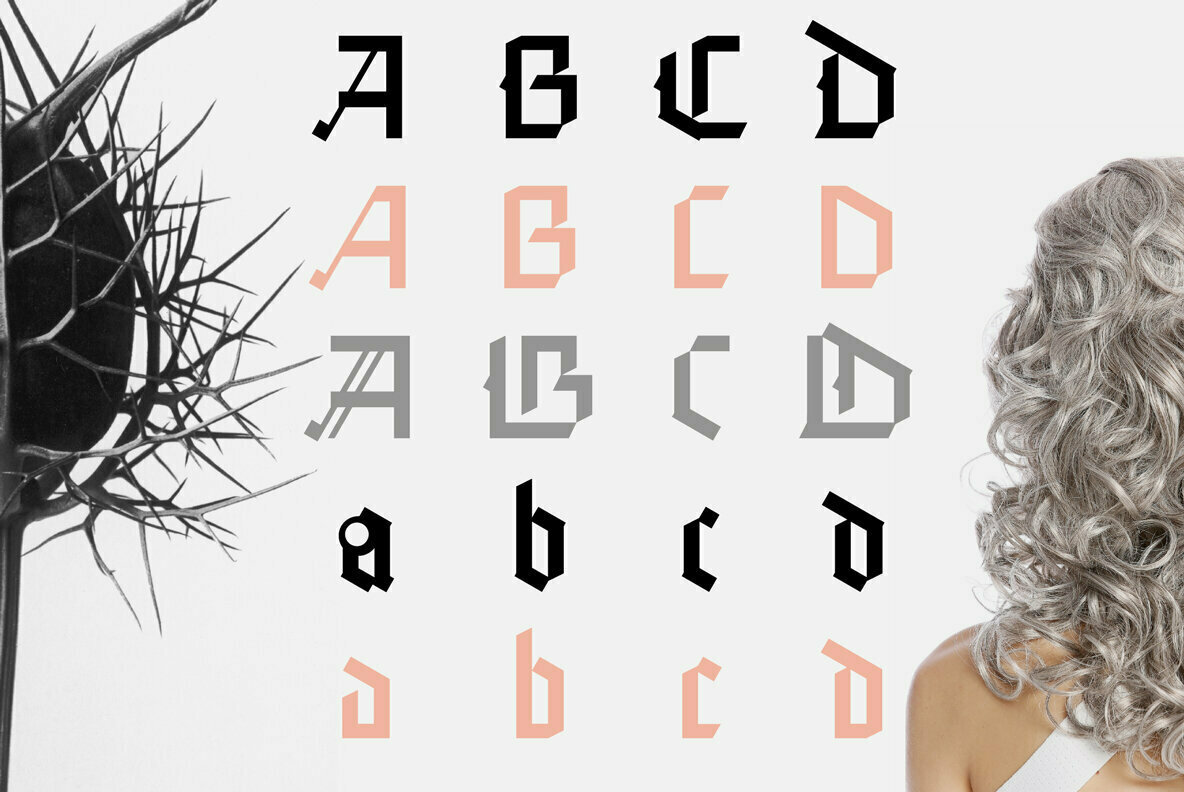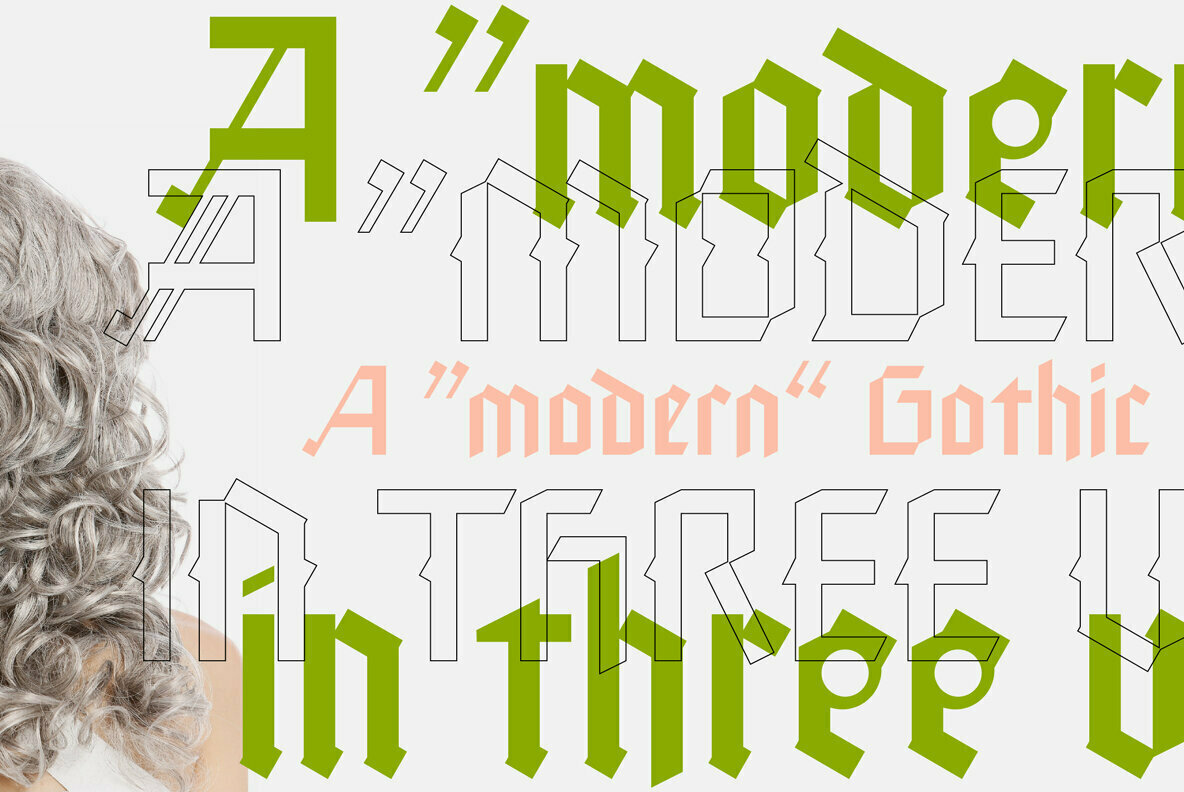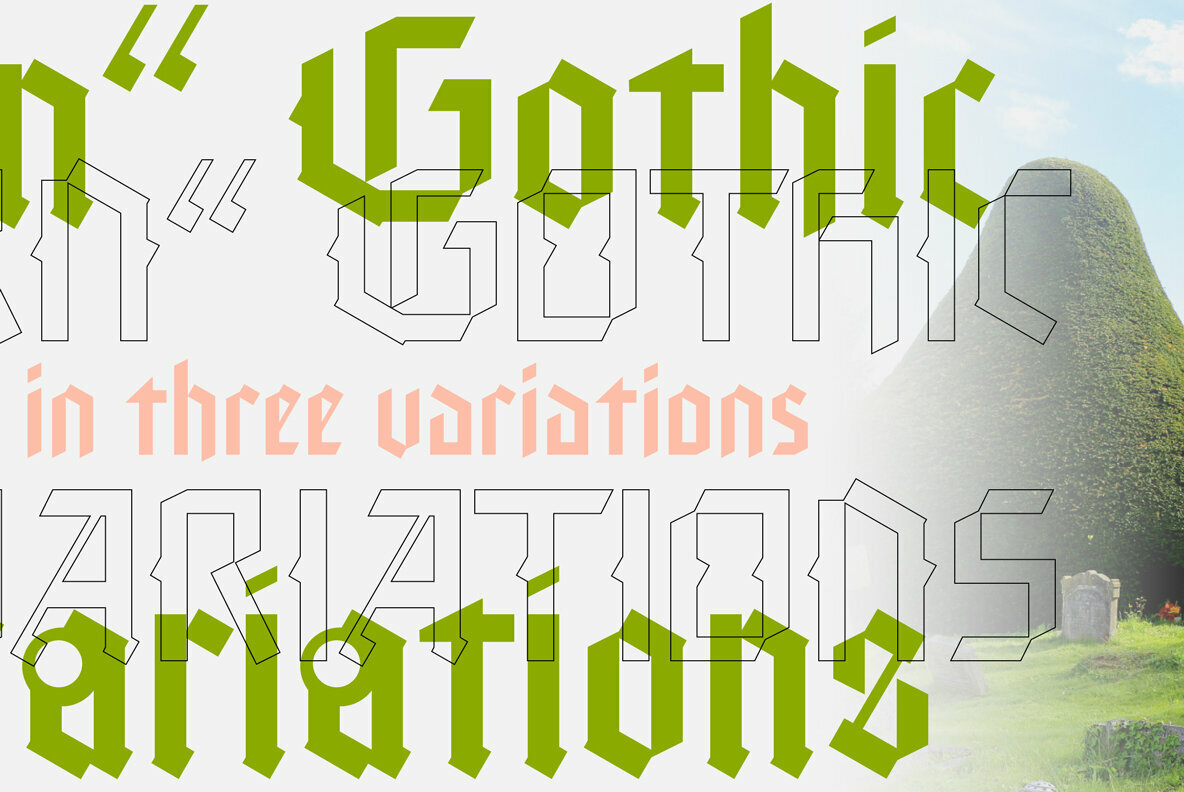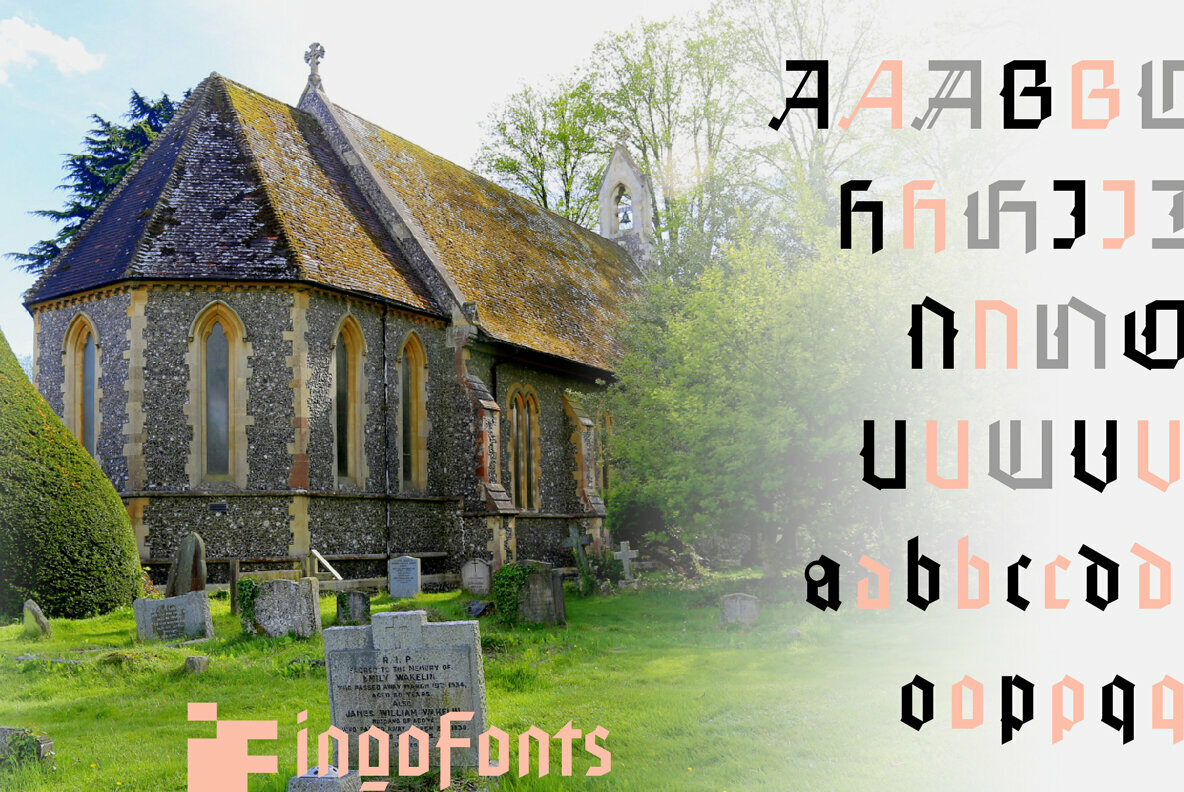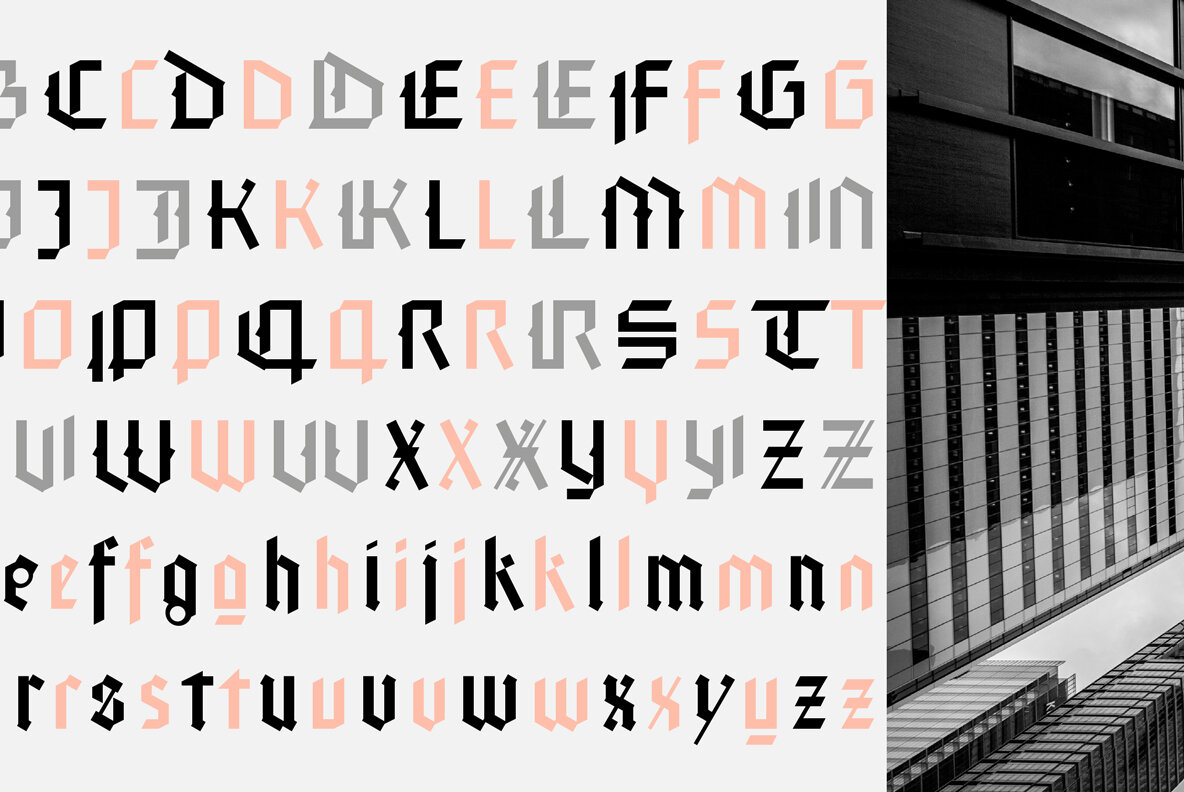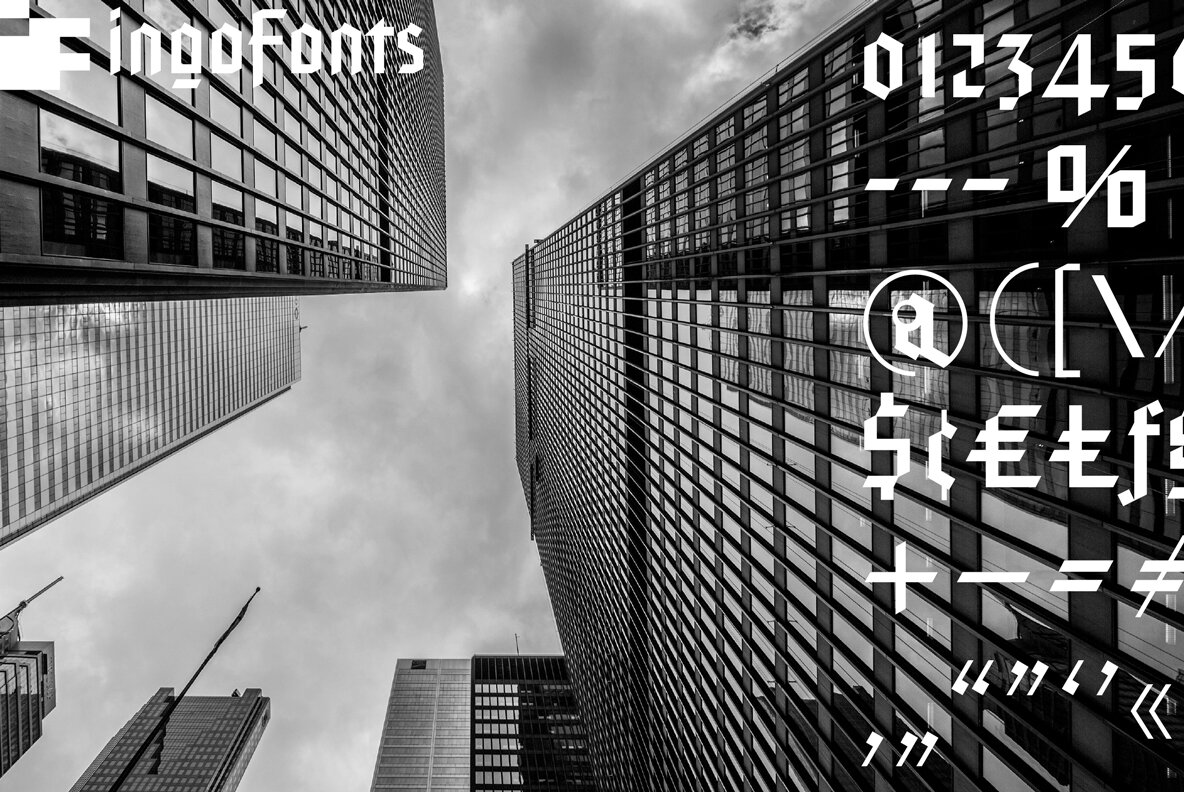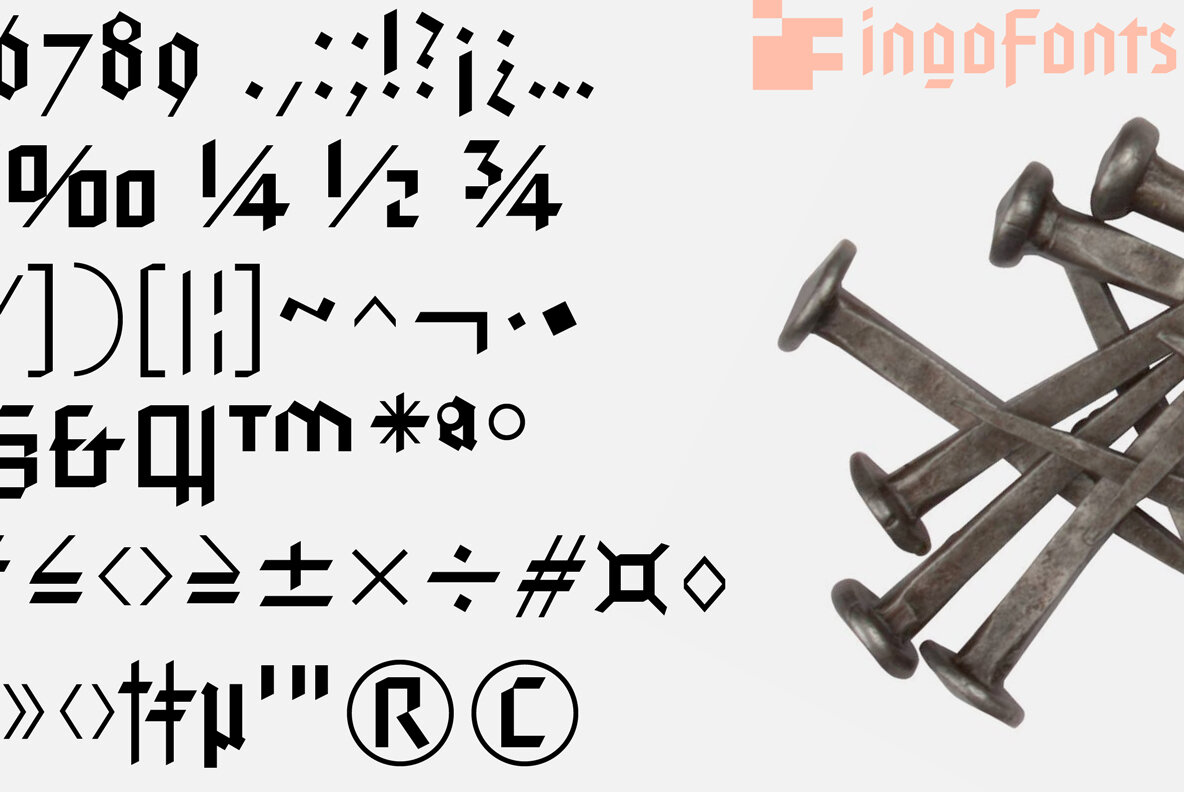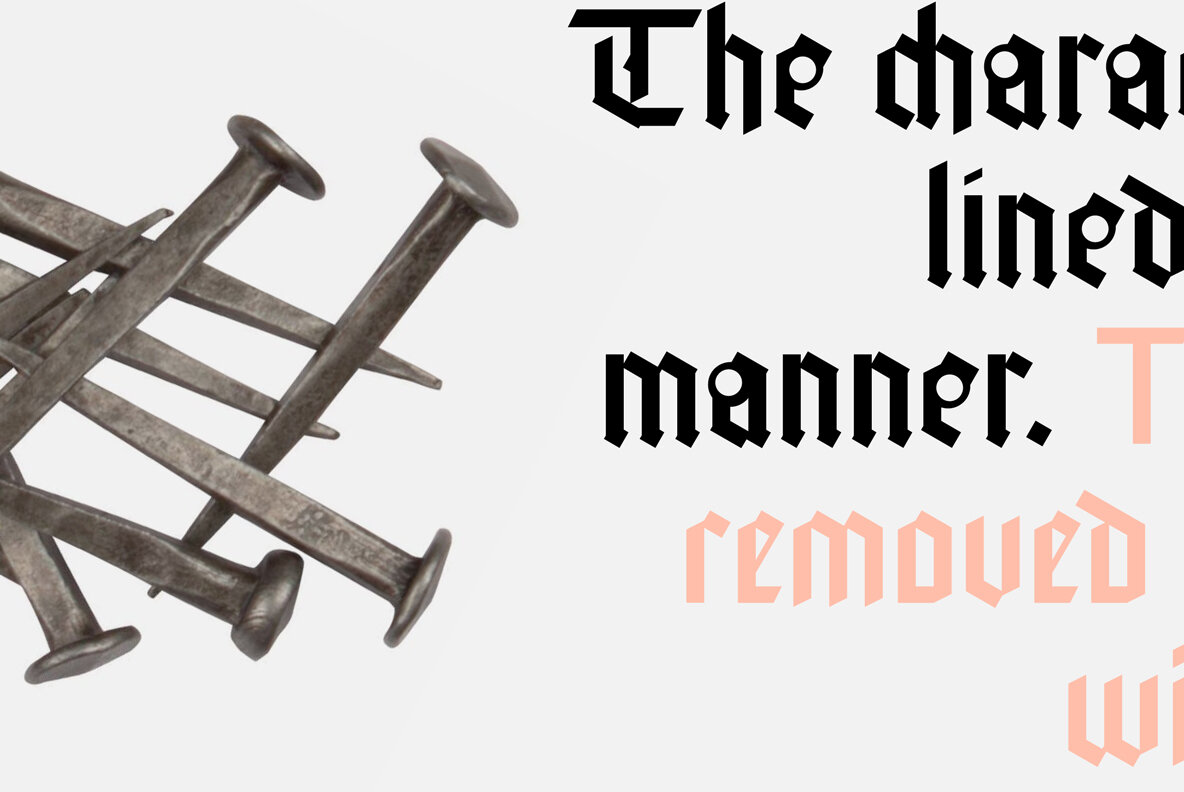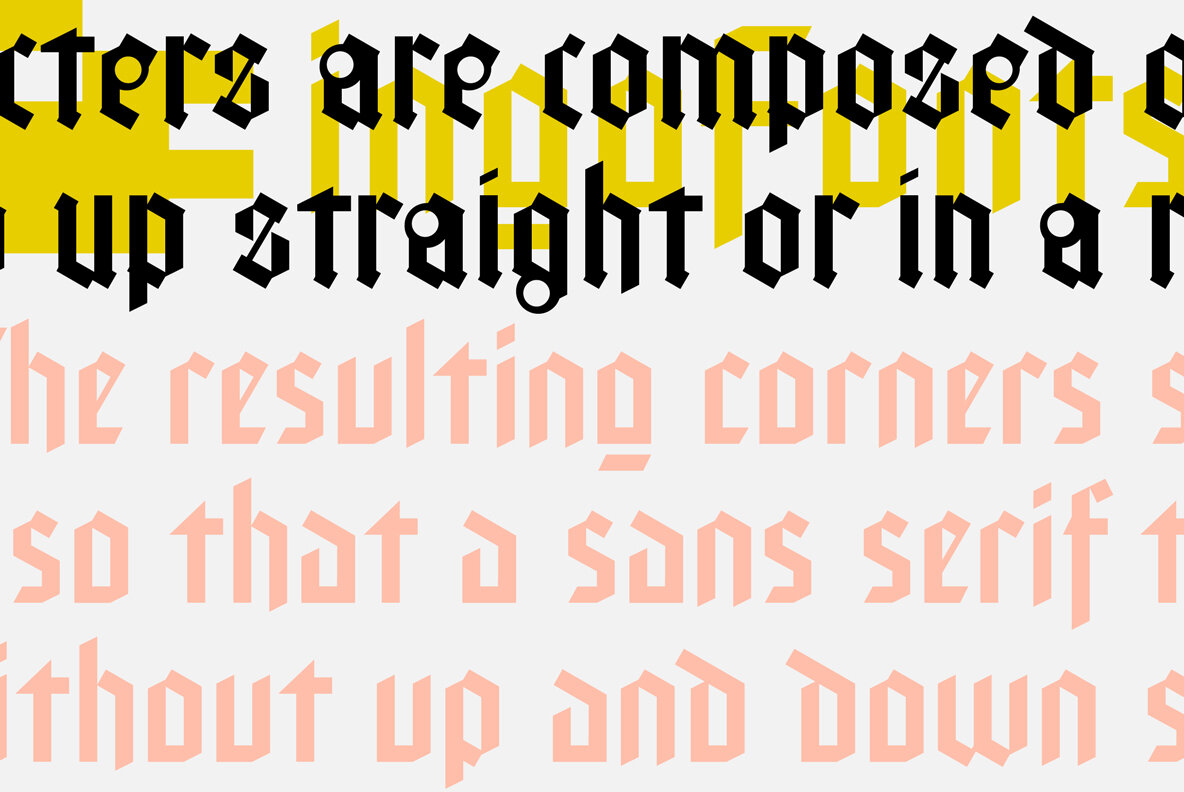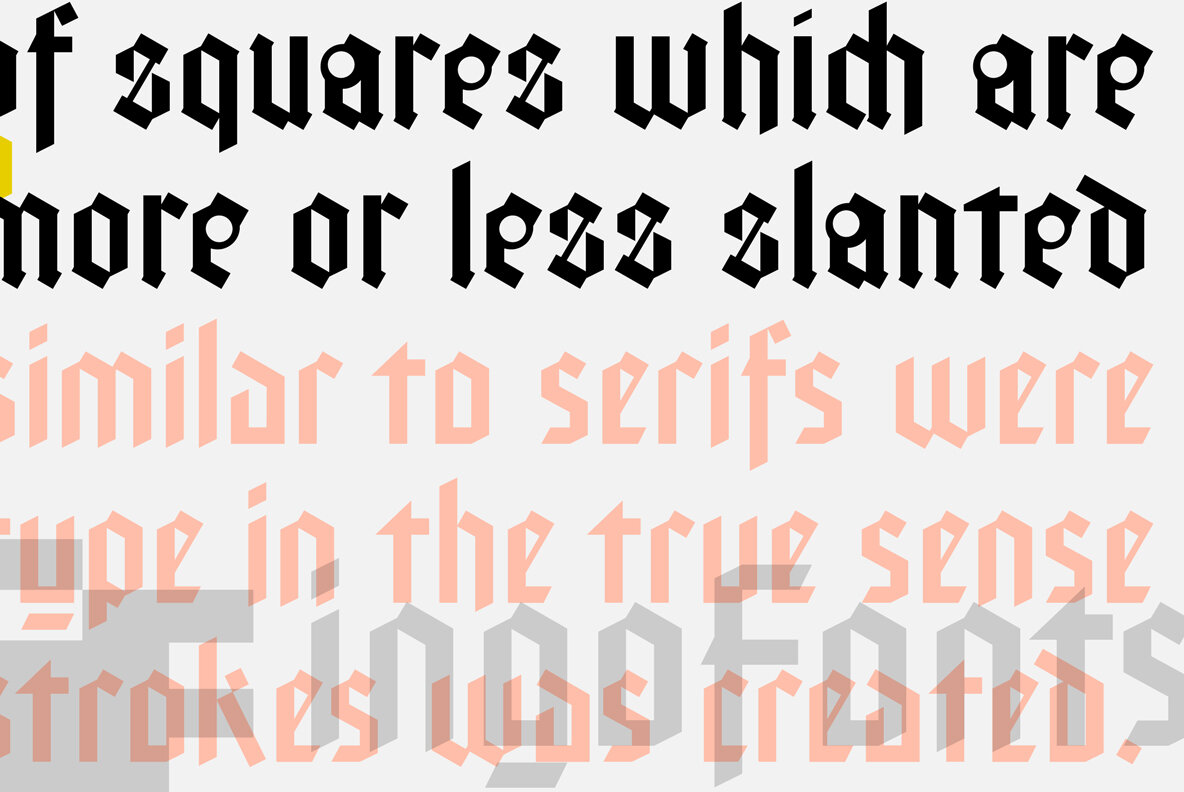
Faber Gotic Font
A ”modern“ Gothic – designed according to principles of modern form in three variations
Faber-Gotik is a reminiscence of Gutenberg’s first script from around 1450. The heavily broken forms allow further development in the direction of a modern, strongly geometric and less formal type. It should be possible to push the principle of design so far to the limit that a type is created which, from the very start, extinguishes reminders of a dark past.
The characters are composed of squares which are lined up straight or in a more or less slanted manner. The resulting corners similar to serifs were removed so that a sans serif type in the true sense without up and down strokes was created. The principle of ”breaking“ was applied according to the historical model. Even the form of the characters is based on the model from the Middle Ages. Only the characters which cannot be created with the principle described were modeled on today's forms.
Faber Gotik includes three variations:
- Faber Gotic Text — most similar to the historical model
- Faber Gotic Gothic — pushes the applied principle of form the furthest
- Faber Gotic Capitals — a Gothic upper case font, contrary to tradition.
555 years after Gutenberg, interest in black-letter typefaces is nearly extinct. They are especially looked down upon in German-speaking countries because they are still associated with ”Nazi“ scripts. But yet, the very forms of blackletter, Gothic, Schwabacher and especially cursive have enormous potential with regard to the development of new advanced font forms.